As designers, we’re constantly searching for typography that evokes emotion and brings a touch of artistry to our projects. Watercolor fonts perfectly balance artistic expression with functional typography, adding an organic, handmade quality that digital designs often lack.
Whether you’re creating wedding invitations, designing a lifestyle blog, or crafting a brand identity for a boutique business, watercolor fonts can infuse your work with warmth, creativity, and a distinctive personal touch that stands out in today’s digital landscape.
In this comprehensive guide, I’ll explore the most beautiful watercolor fonts of 2026, explain what makes them so captivating, and share expert tips for using them effectively in your designs. Let’s dive into the colorful world of watercolor typography!
Top 30 Stunning Watercolor Fonts of 2026
I’ve curated this collection of the most gorgeous watercolor fonts available right now. Each brings its own unique character and artistic quality to the table:
Likewise
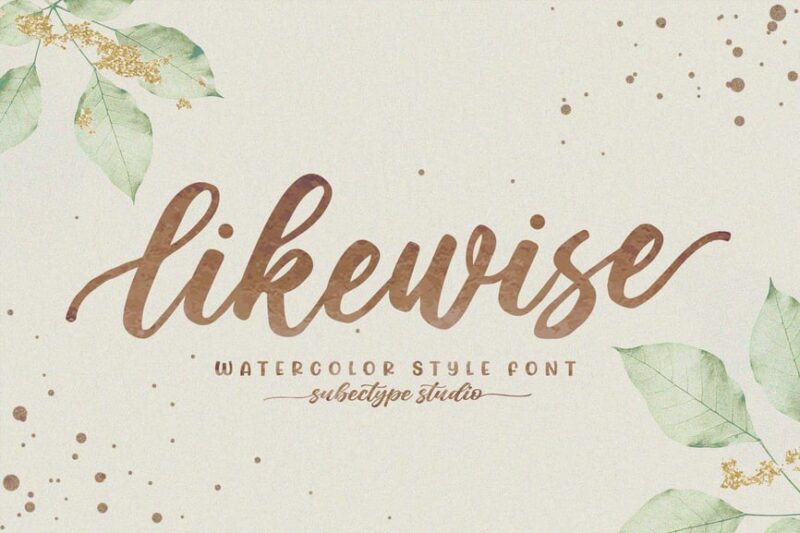
Likewise is a versatile watercolor font that combines serif, sans-serif, script, and handwritten styles. Its decorative nature and watercolor effect make it perfect for creating eye-catching designs with a soft, artistic touch.
Katie Roze
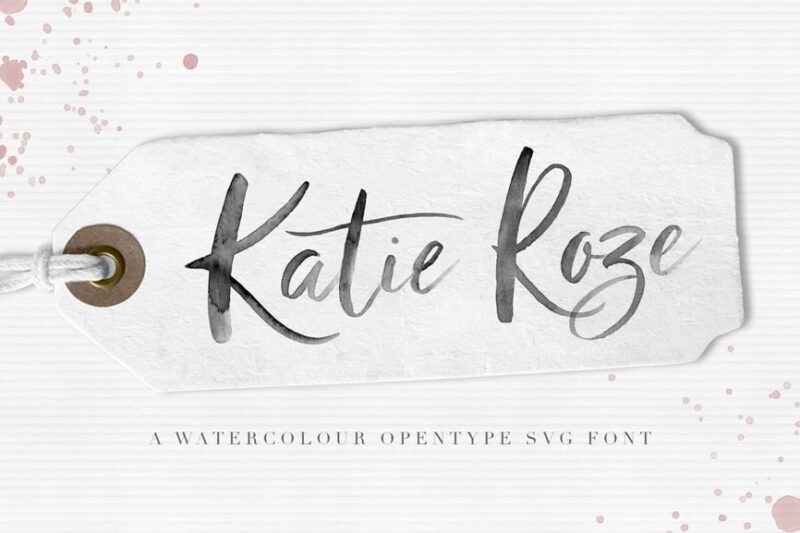
Katie Roze is a beautiful watercolor SVG font that blends script and handwritten styles with sans-serif elements. Its OpenType features and watercolor texture make it ideal for creating unique, artistic typography in various design projects.
Hello Friday
Hello Friday is a charming watercolor SVG font that combines serif and script styles. Its handwritten feel and watercolor effect make it perfect for creating warm, inviting designs with a touch of elegance.
SpringRain
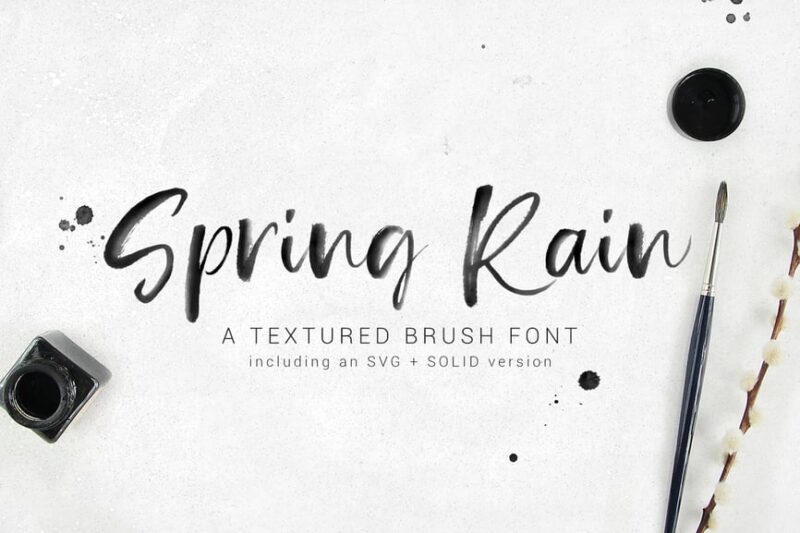
SpringRain is a delightful SVG watercolor brush font with a script and handwritten style. Its brush-like strokes and watercolor texture make it ideal for creating fresh, organic-looking designs with a natural feel.
The Old Valley
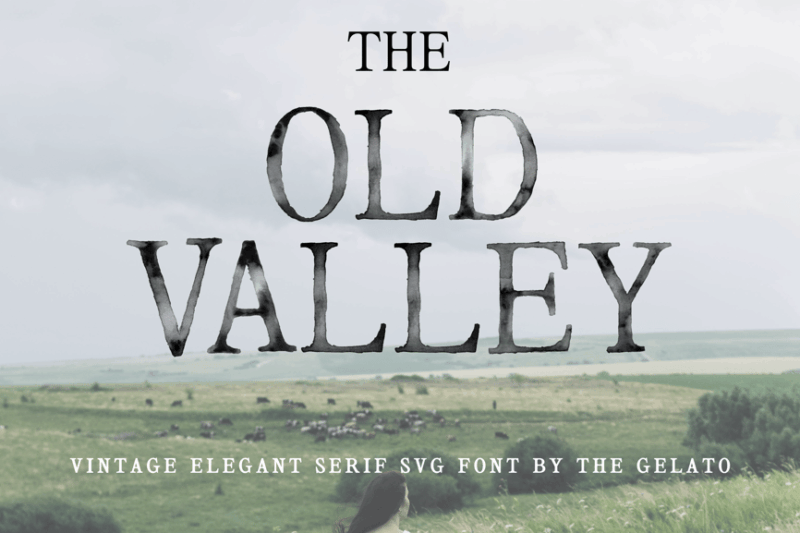
The Old Valley is an elegant font with a decorative touch. Its minimal yet sophisticated design makes it perfect for creating timeless, high-end typography with a subtle artistic flair.
Shallom
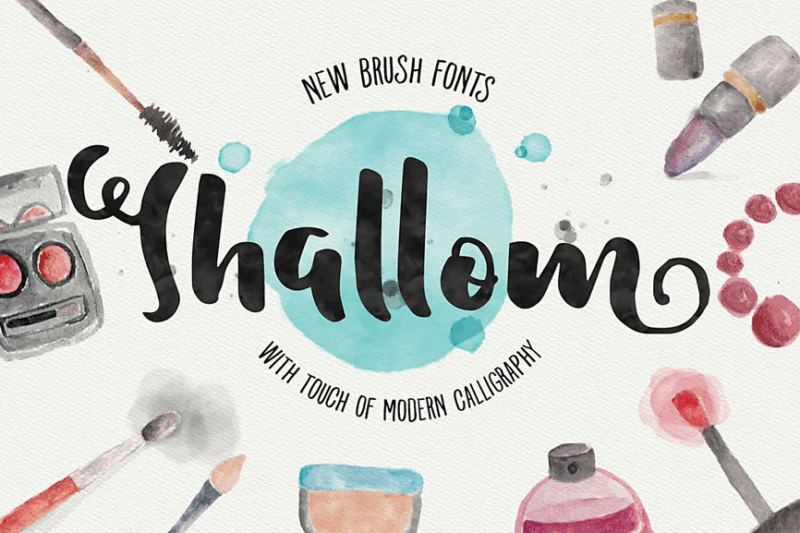
Shallom is a beautiful script and handwritten font featuring brush-like strokes and calligraphic elements. Its fluid, graceful style makes it ideal for creating elegant designs with a personal touch.
Roomfer
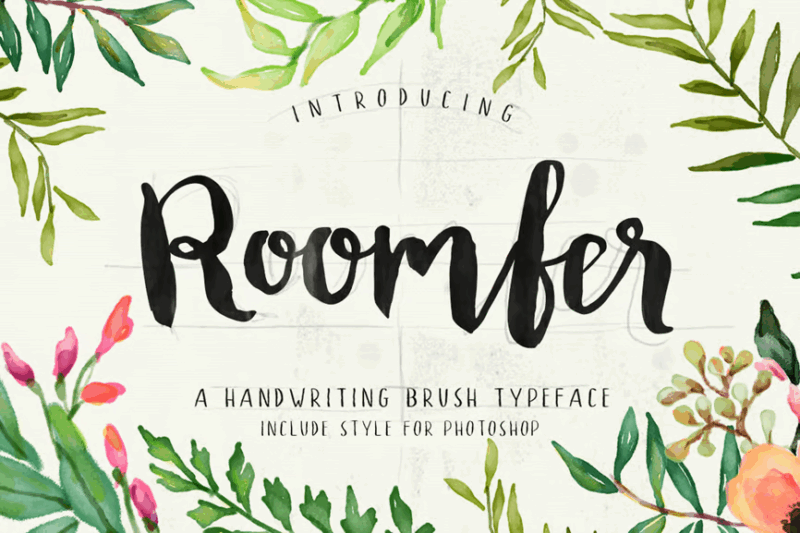
Roomfer is a bold, brushed script font that comes with additional Photoshop styles. Its strong, dynamic character makes it perfect for creating impactful designs and eye-catching headlines.
Vintage Ink
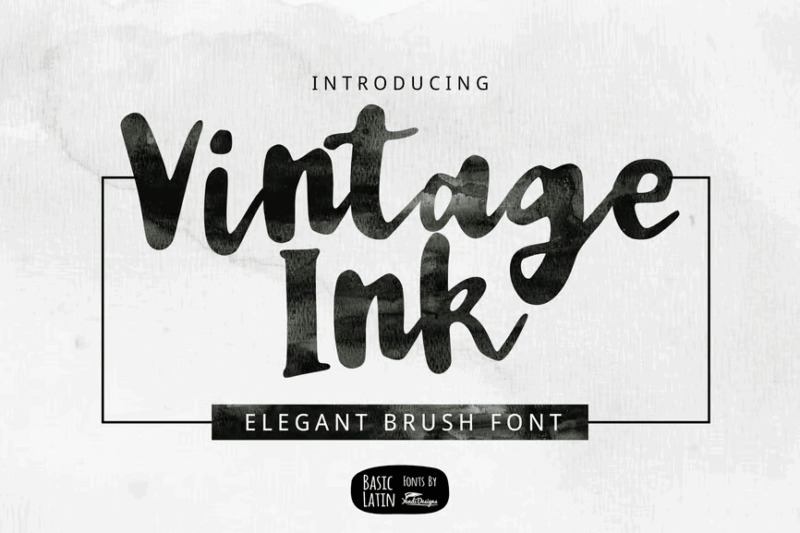
Vintage Ink is a unique font that blends script, decorative, and sans-serif styles with a vintage twist. Its modern interpretation of classic design elements makes it versatile for both retro and contemporary projects.
Dumbleton
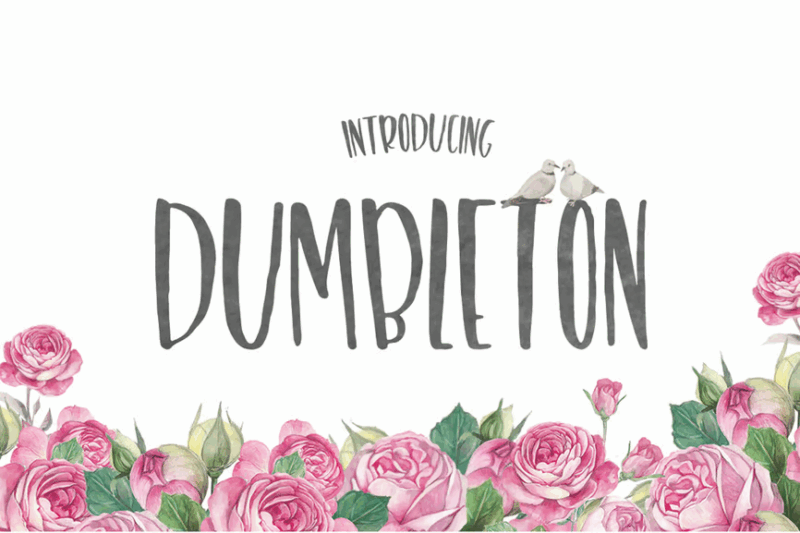
Dumbleton is a tall sans-serif font with a watercolor effect. Its elongated characters and artistic texture make it ideal for creating striking headlines and logos with a touch of whimsy.
Walmath
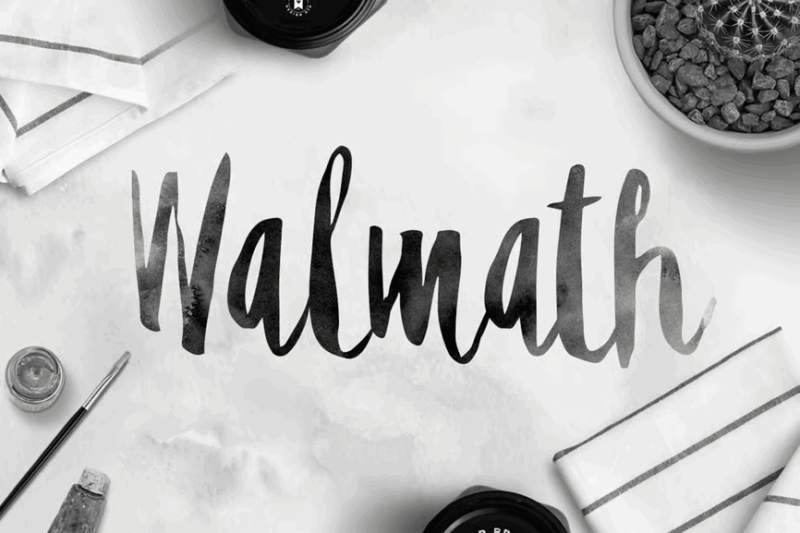
Walmath is a bold script and handwritten font with a strong presence. Its confident strokes and dynamic character make it perfect for creating impactful designs that demand attention.
Pastelle
Pastelle is an handwritten font that combines sans-serif and script styles with a brush-like quality. Its versatile nature and smooth transitions make it suitable for a wide range of design applications, from branding to digital media.
Billow
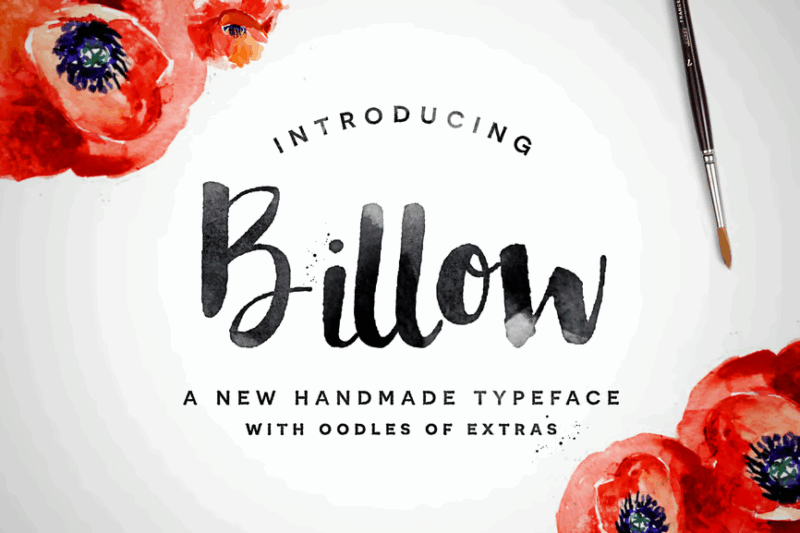
Billow is a script and handwritten font with a flowing, ink-like quality. Its organic, fluid strokes make it perfect for creating designs with a natural, artistic feel, ideal for branding and editorial projects.
Mellow Burgundy
Mellow Burgundy is a handwritten SVG font with decorative elements. Its casual yet stylish appearance makes it ideal for creating personal, approachable designs with a touch of creativity.
Greget
Greget is a script and handwritten typeface with a brush-like quality. Its expressive strokes and dynamic character make it perfect for creating designs with energy and personality.
Lovely Photograph
Lovely Photograph is an elegant script and handwritten font, ideal for wedding designs. Its graceful curves and refined appearance make it perfect for creating sophisticated, romantic typography.
Marshe
As we continue through 2026, expect to see watercolor typography evolve in exciting ways—incorporating new techniques, expanding into animated formats, and finding applications in emerging design fields. The fluid, expressive nature of these fonts ensures they’ll remain a valuable tool in any designer’s arsenal for years to come.